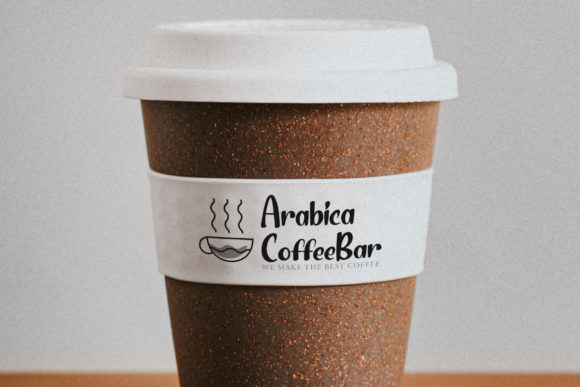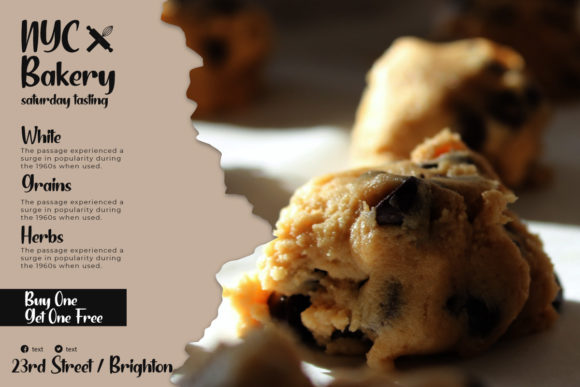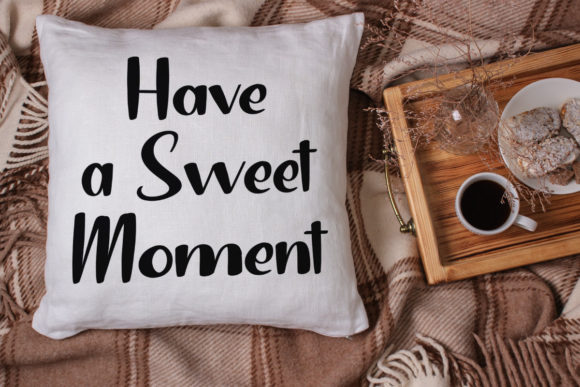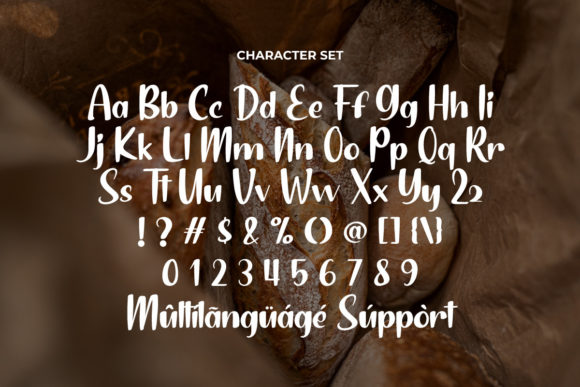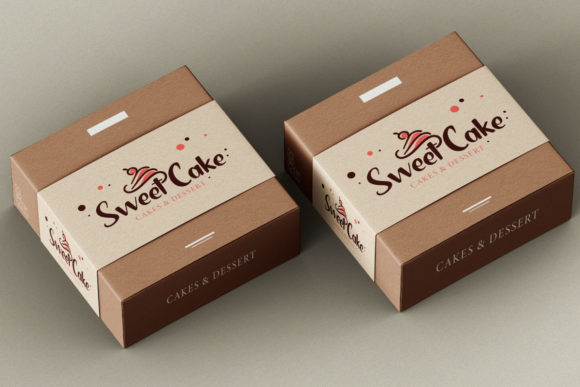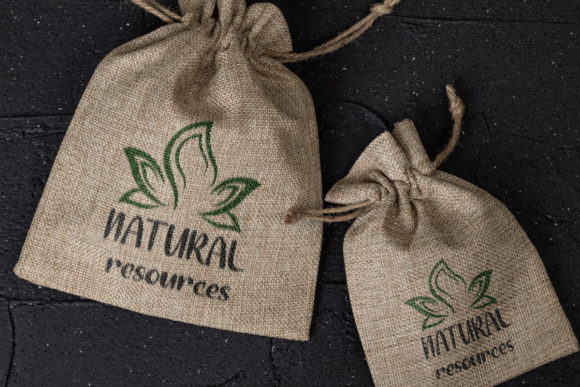
Bitter Pastry Font: Elevate Your Designs with a Friendly, Casual, and Trendy Display Font
Are you tired of using the same old fonts in your designs? Look no further than Bitter Pastry, a friendly, casual, and trendy display font that’s sure to elevate your creations. Whether you’re a designer, crafter, or simply someone who loves to dabble in DIY projects, Bitter Pastry is an incredible asset to have in your font library.
What is Bitter Pastry Font?
Bitter Pastry is a display font that’s perfect for adding a touch of personality to your designs. Its friendly and casual vibe makes it ideal for a wide range of projects, from branding and advertising to crafting and DIY tutorials. The font’s trendy aesthetic ensures that your creations will look modern and fresh, grabbing the attention of your audience and leaving a lasting impression.
Key Features of Bitter Pastry Font
- Unique and Creative Design: Bitter Pastry boasts a one-of-a-kind design that’s sure to make your creations stand out from the crowd.
- Friendly and Casual Vibe: The font’s friendly and casual aesthetic makes it perfect for designs that require a personal touch.
- Trendy Aesthetic: Bitter Pastry’s trendy design ensures that your creations will look modern and fresh.
- Versatile: This font is suitable for a wide range of projects, from branding and advertising to crafting and DIY tutorials.
Benefits of Using Bitter Pastry Font
So, why should you choose Bitter Pastry for your designs? Here are just a few benefits of using this amazing font:
- Elevate Your Designs: Bitter Pastry has the potential to elevate any creation, adding a touch of personality and style that’s sure to impress.
- Save Time: With Bitter Pastry, you can create stunning designs in no time. The font’s unique design and versatility make it easy to use and customize.
- Stand Out from the Crowd: Bitter Pastry is a unique and creative font that’s sure to make your designs stand out from the crowd.
How to Use Bitter Pastry Font
Using Bitter Pastry is easy! Here are a few tips to get you started:
- Pair it with Other Fonts: Bitter Pastry pairs well with a variety of fonts, making it easy to create stunning combinations.
- Experiment with Colors: The font’s trendy aesthetic looks great with a wide range of colors, so don’t be afraid to experiment and find the perfect combination for your design.
- Use it for Headings and Titles: Bitter Pastry is perfect for headings and titles, adding a touch of personality and style to your designs.
Who is Bitter Pastry Font Suitable for?
Bitter Pastry is suitable for a wide range of designers and crafters, including:
- Graphic Designers: Bitter Pastry is perfect for graphic designers who want to add a touch of personality to their designs.
- Crafters: Crafters who love to create DIY projects will adore Bitter Pastry’s friendly and casual vibe.
- Branding and Advertising Agencies: Bitter Pastry is a great choice for branding and advertising agencies looking for a unique and creative font to elevate their campaigns.
In conclusion, Bitter Pastry is an incredible asset to have in your font library. Its friendly, casual, and trendy aesthetic makes it perfect for a wide range of designs, from branding and advertising to crafting and DIY tutorials. With its unique design, versatility, and ease of use, Bitter Pastry is sure to elevate your creations and help you stand out from the crowd.